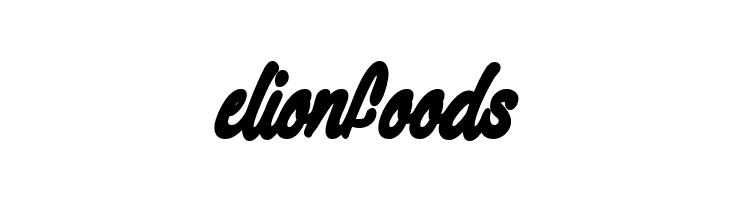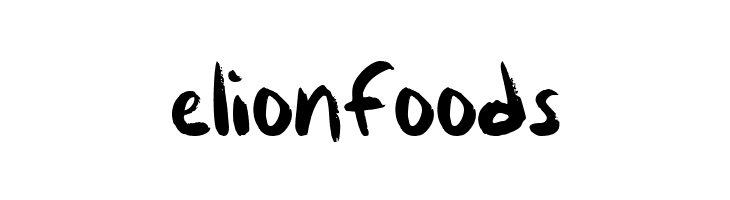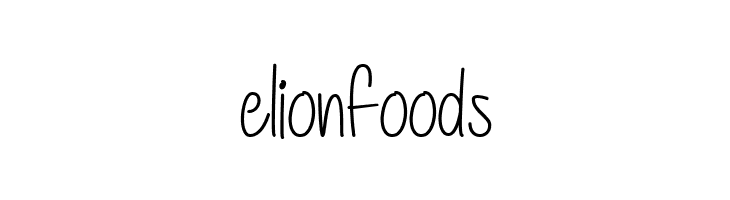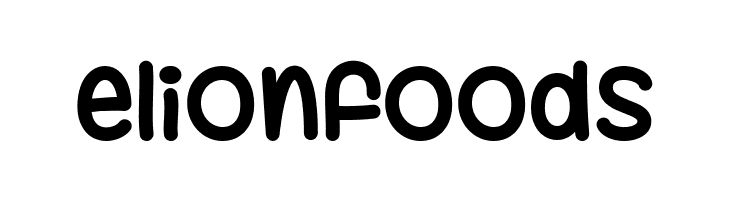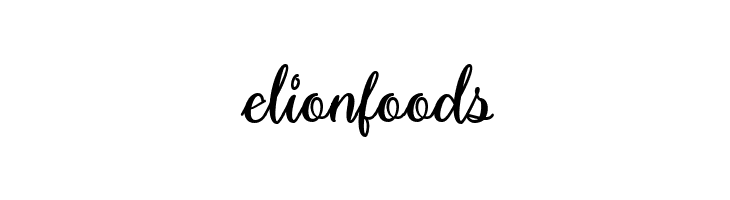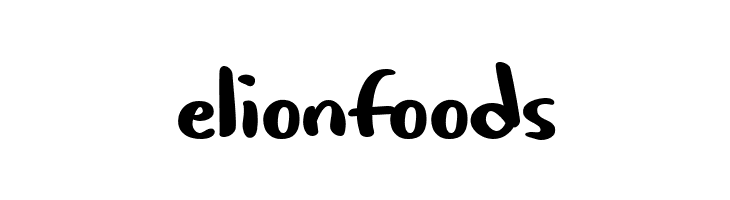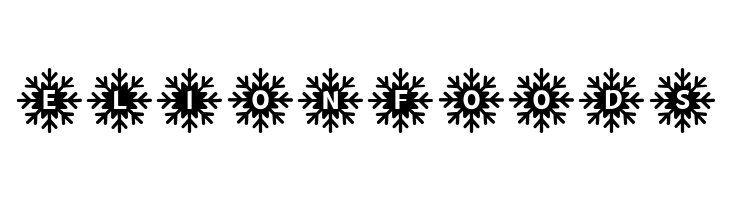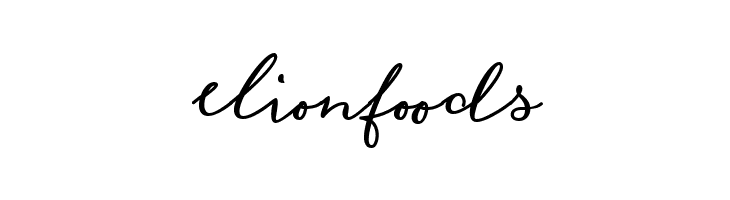
A bold, playful script font with a festive and dynamic style.
A bold, hand-painted style font with an expressive and dynamic appearance.
An elegant script font with flowing, cursive lines and decorative elements.
A playful handwritten font with smooth curves and a casual style.
A playful, rounded font with a bold and friendly style.
An elegant, decorative script font with intricate loops and flourishes.
A playful, casual handwritten font with a whimsical and informal style.
A bold, playful handwritten font with rounded, smooth letterforms.
A decorative font with characters inside snowflake designs, perfect for winter themes.
A graceful and flowing script font with elegant, connected strokes.